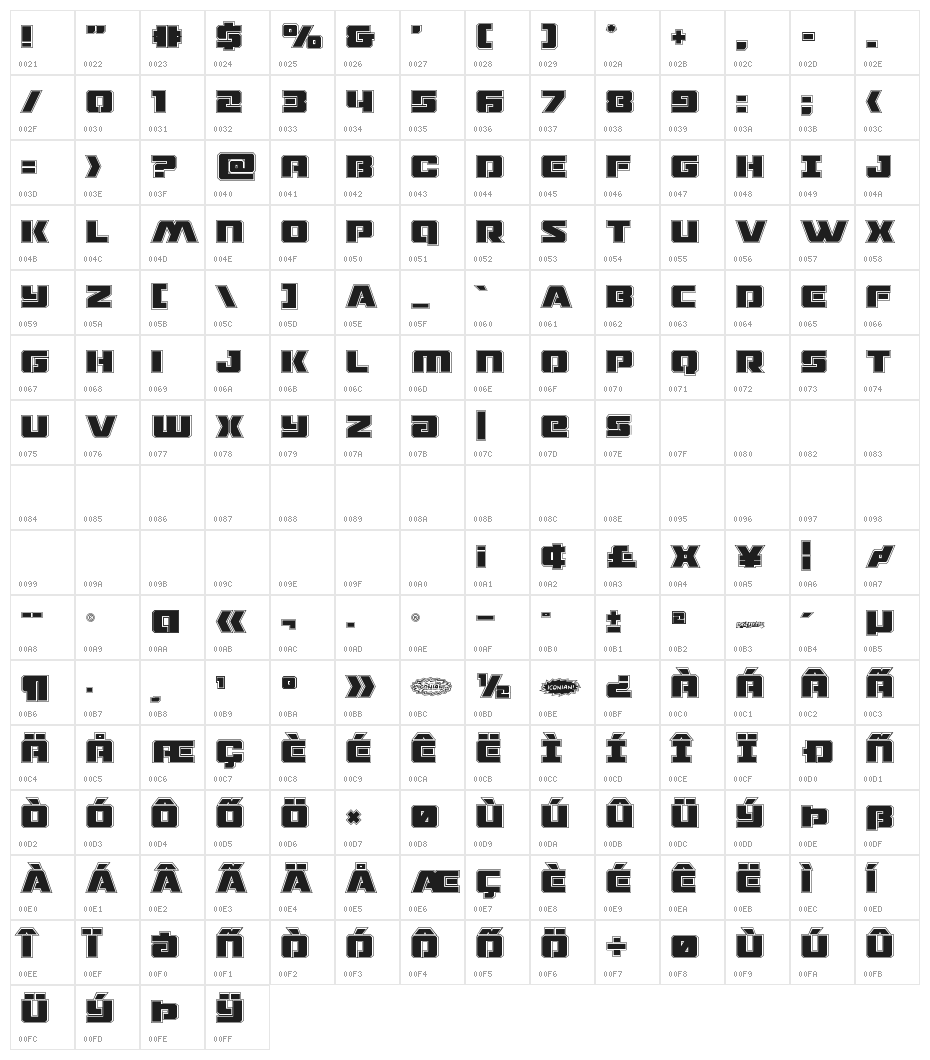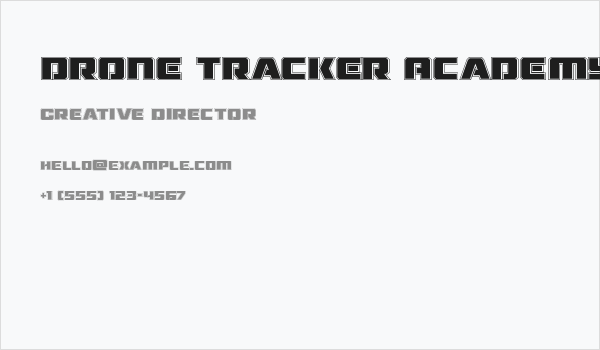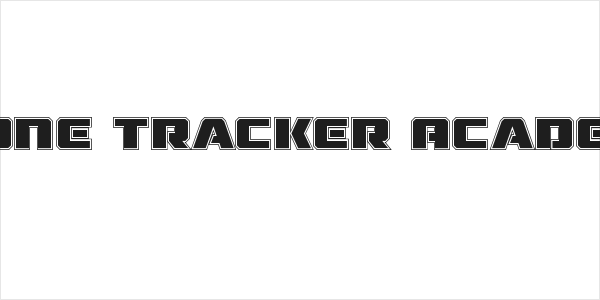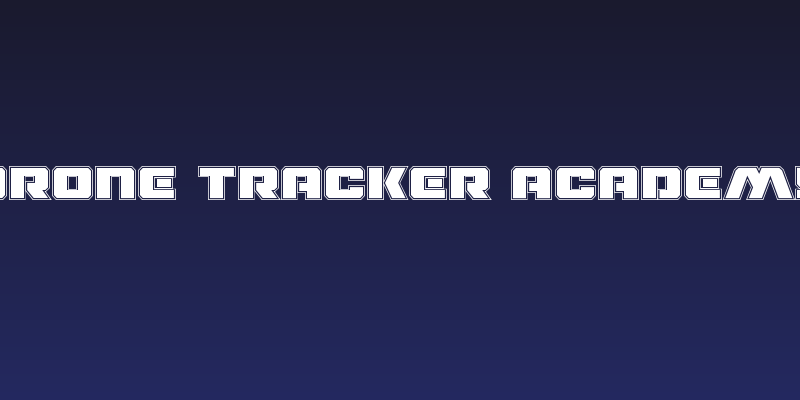
Drone Tracker Academy Font
Drone Tracker Academy Description
This font features a bold, geometric design with a strong, futuristic aesthetic. The characters are constructed with thick, block-like shapes that give a sense of solidity and strength. Each letter is outlined, adding a layer of depth and dimension. The uppercase and lowercase letters maintain a consistent style, with sharp angles and a uniform width. The numerals and special characters follow the same design principles, ensuring a cohesive look across all elements. This font is ideal for projects that require a modern, tech-inspired feel.